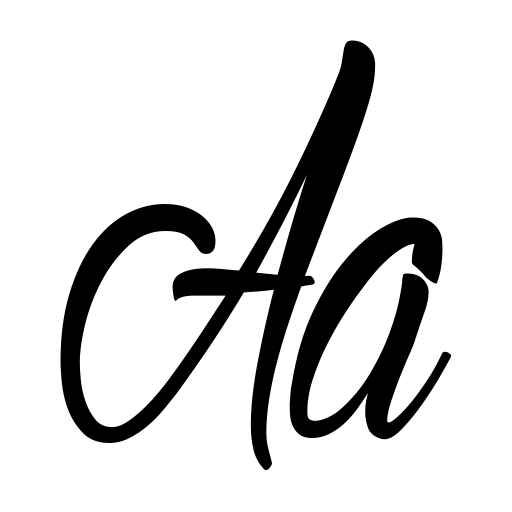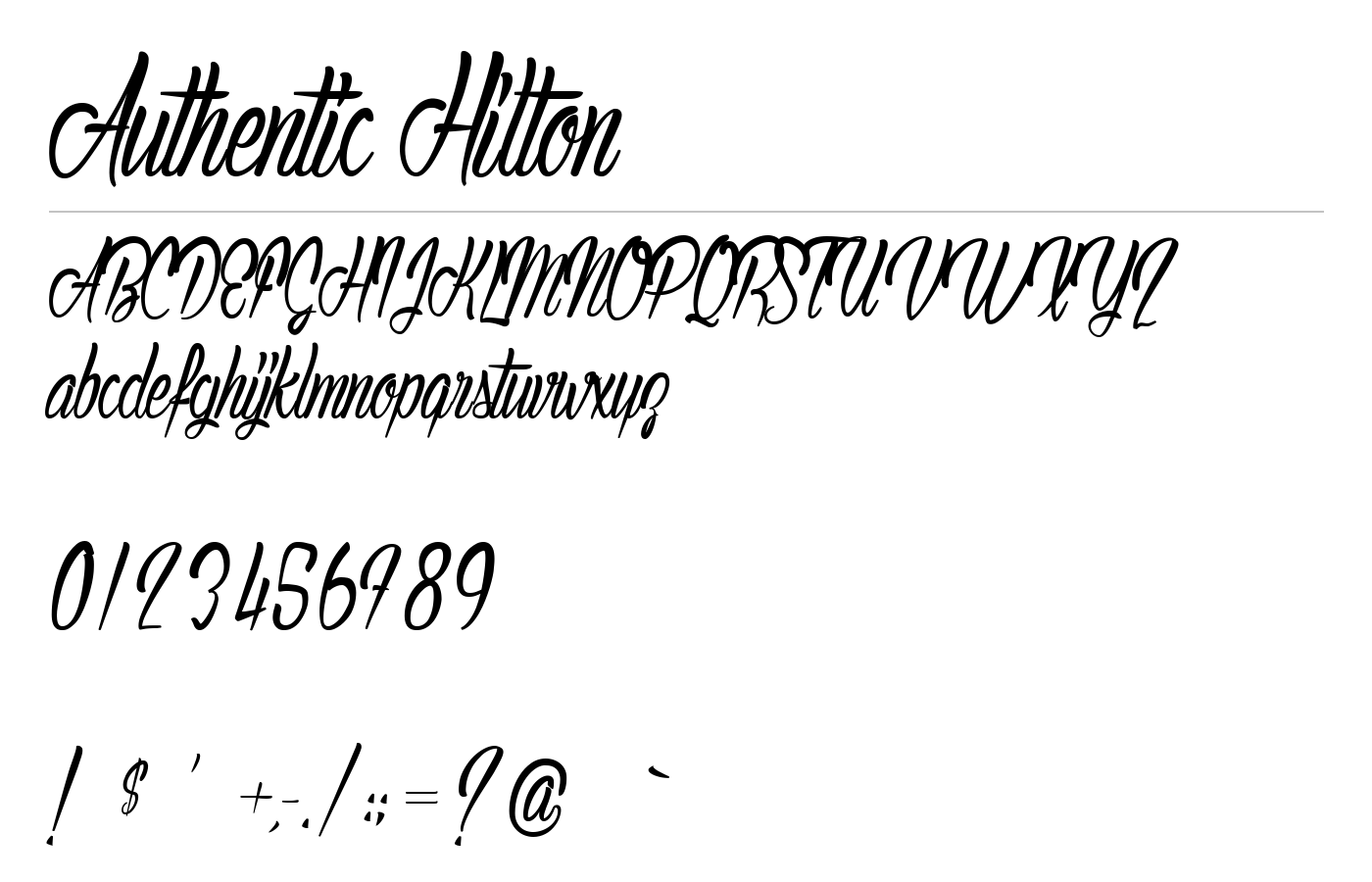
Authentic Hilton is a stylish script font characterized by its elegant, flowing letterforms and a high contrast between thin and thick strokes. Its tall, narrow characters with smooth, cursive connections give it a sophisticated and graceful feel, making it perfect for luxury branding, invitations, and fashion-related designs where a refined and personal touch is desired. This font works well in headlines and logos, adding a sense of elegance and modern flair without sacrificing readability.
Authentic Hilton Font
About Authentic Hilton Font